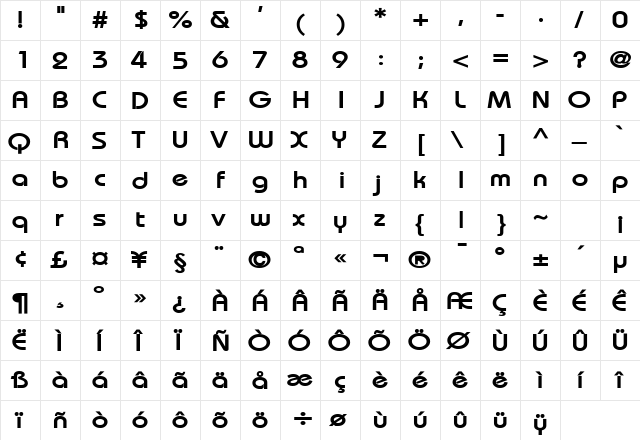
Bimini Wide Bold
Design Context for Bimini Wide Typeface
Bimini Wide takes a measured approach to typography — its balanced proportions and neutral character make it a reliable workhorse for both digital and print work. Its bold stroke weight gives it real presence on the page.